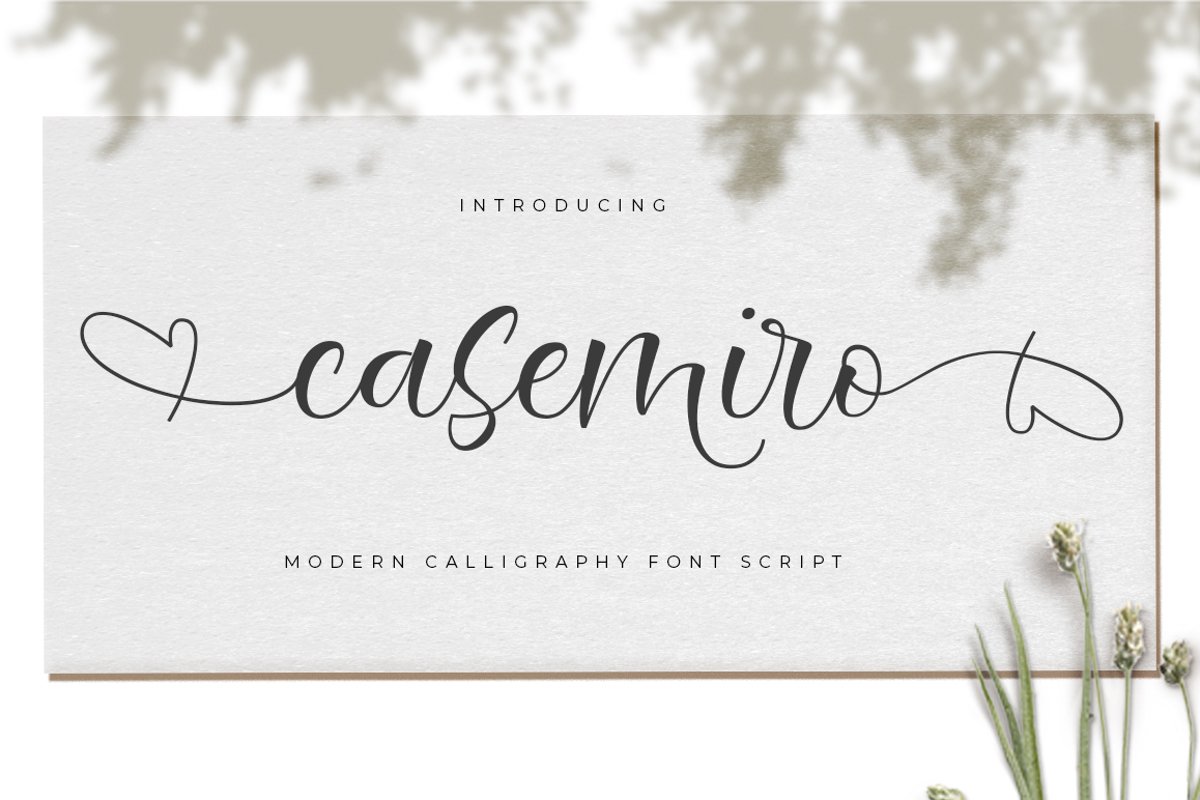
Casemiro Script
Casemiro
Introducing
Casemiro calligraphy an elegant new font! This font is made especially for those of you who need a touch of elegance and love to design your next project with perfect and amazing results.
Casemiro is equipped with lines that are perfect for use for various purposes. Such as titles, signatures, logos, correspondence, wedding invitations, letterhead, sign boards, labels, bulletins, posters, badges, Branding, Greeting Cards, etc.
So beautiful on invitations like greeting cards, and more !!